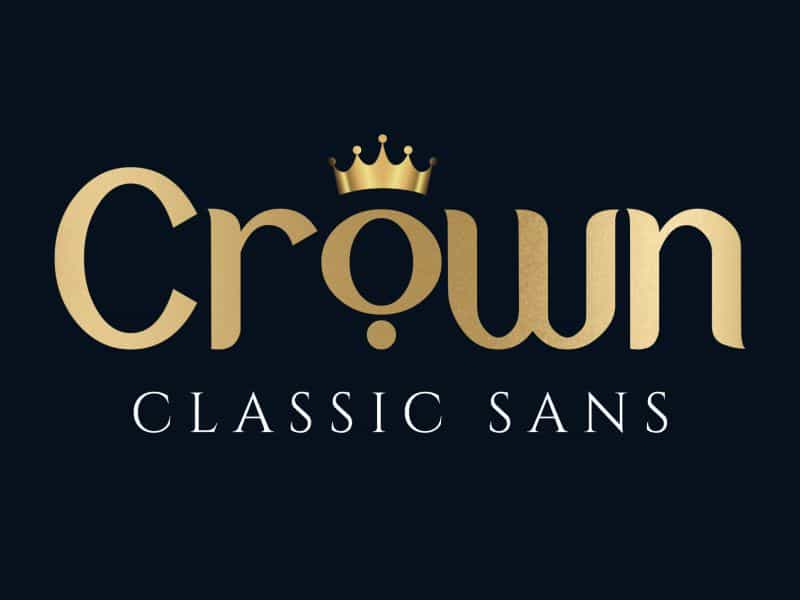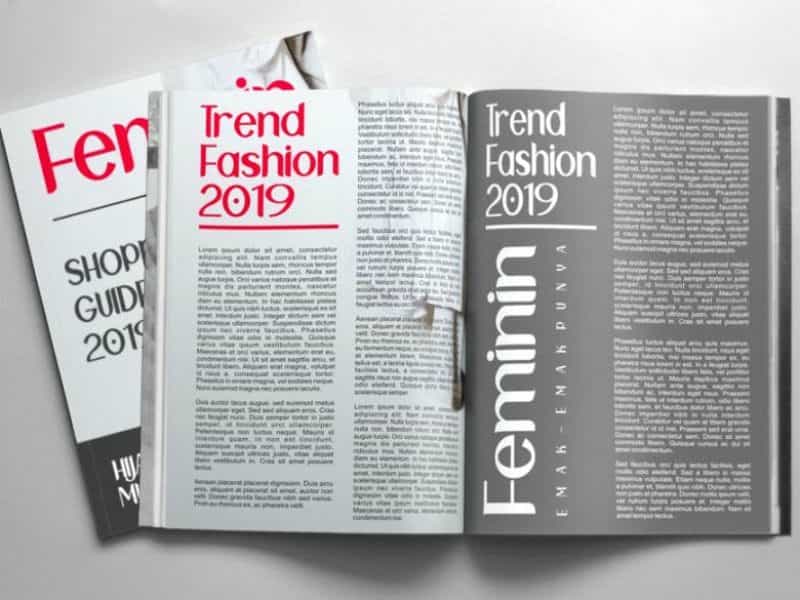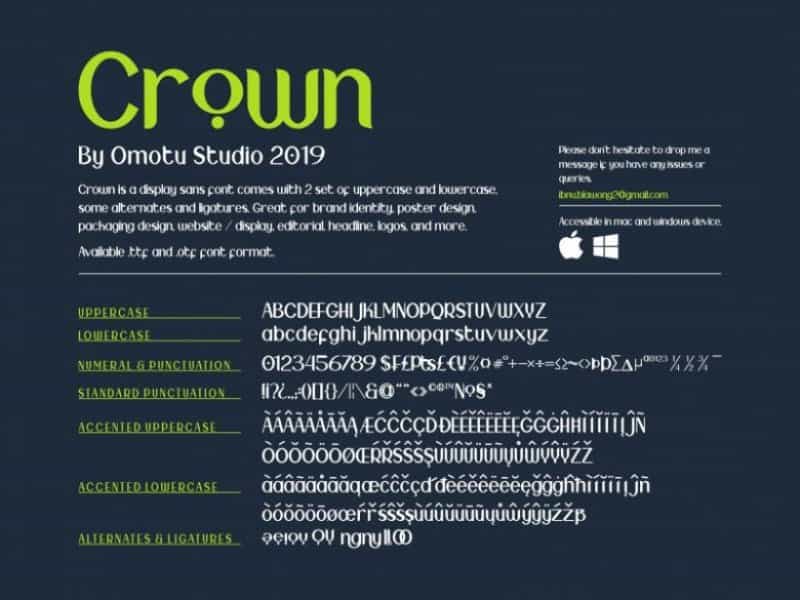
Crown is a display sans font that has two sets of uppercase and lowercase, some alternates and ligatures. It is excellent for the brand identity, poster design, packaging design, website and display design. It can also be used in editorial work as well as headlines and logos among other things.